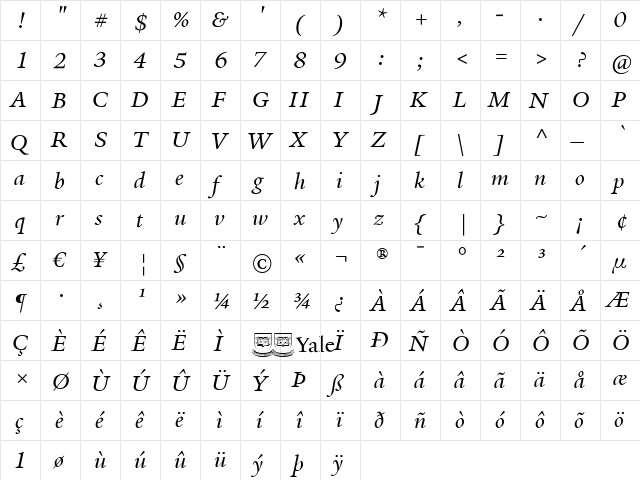
YaleAdmin Italic
| Foundry | Carter & Cone Type Inc |
Design Context for YaleAdmin Typeface
YaleAdmin takes a measured approach to typography — its balanced proportions and neutral character make it a reliable workhorse for both digital and print work. The slanted form adds forward momentum and visual energy.